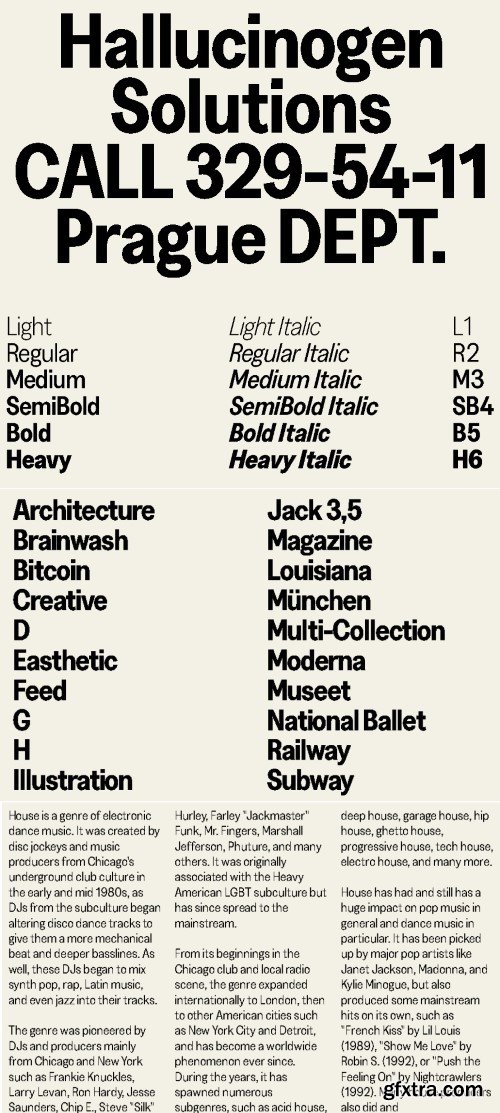
The Greed typeface was originally co-created by Displaay (Martin Vácha) and Anymade Studio (Petr Cabalka & Filip Nerad) as a bespoke typeface for the Polansky Gallery. The original Greed Polansky typeface was substantially re-designed into a retail typeface. The typeface was named after the short fictional commercial “Greed”, promoting a fake fragrance by Francesco Vezzoli as directed by Roman Polanski in 2009. Greed is a sans-serif typeface with narrow proportions. Glyphs include subtle elegant curves and a higher contrast which brings a unique character to the overall look. Italics are at a 14° angle.